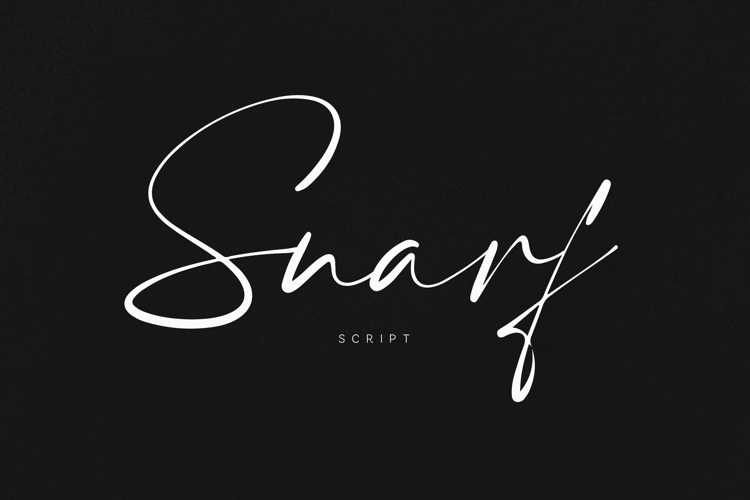
Snarf Signature Script Elegant Handwritten
Snarf is a modern signature script font designed to deliver a clean, elegant, and naturally handwritten look. With its smooth strokes and refined flow, it captures the essence of real signature writing while maintaining excellent readability.
Crafted for designers who want a minimal yet expressive touch, Snarf brings effortless sophistication to branding, logos, and editorial compositions.
Its balanced letterforms and fluid style make it highly versatile across both digital and print projects, adding a stylish character without overwhelming the design.
• Smooth signature flow
• Clean handwritten style
• Elegant minimal aesthetic